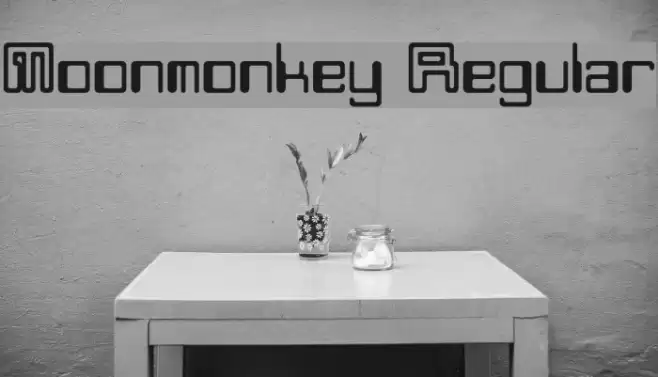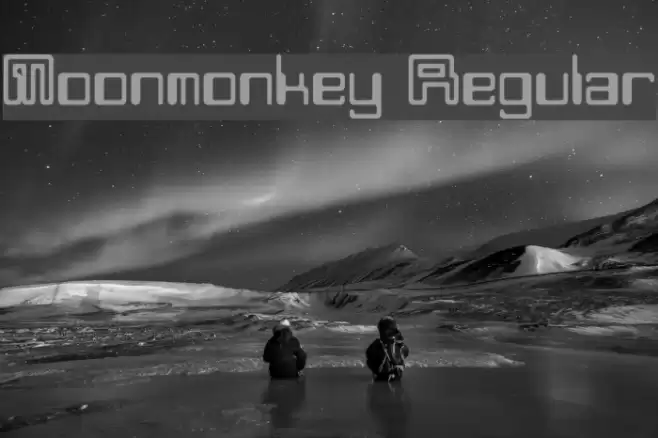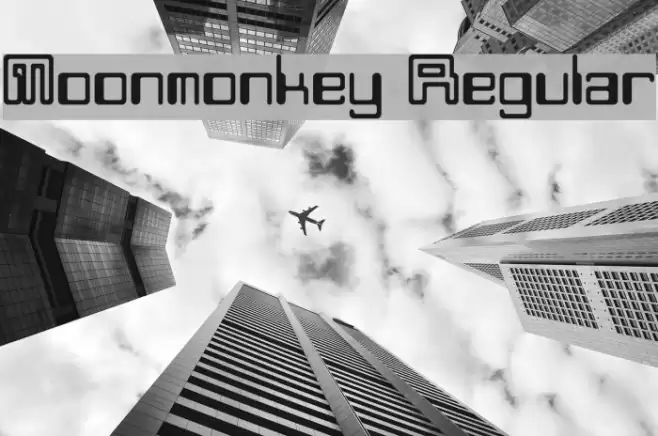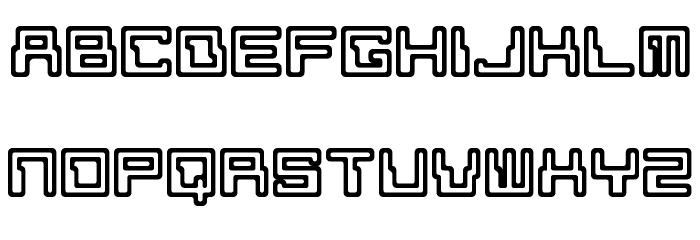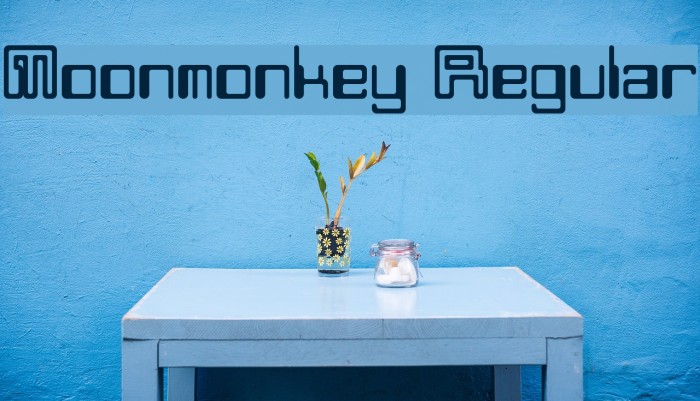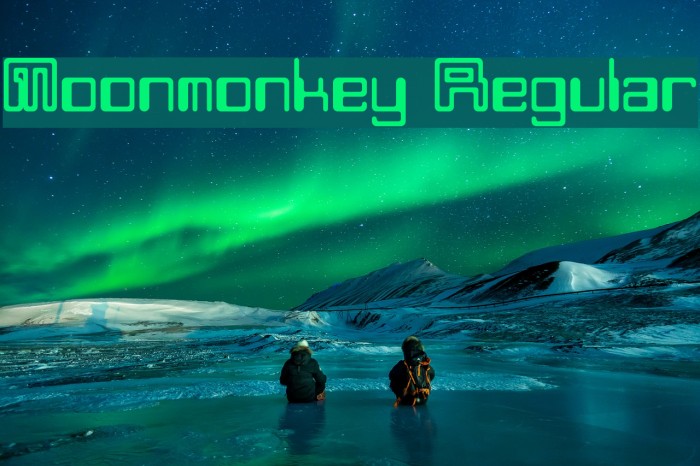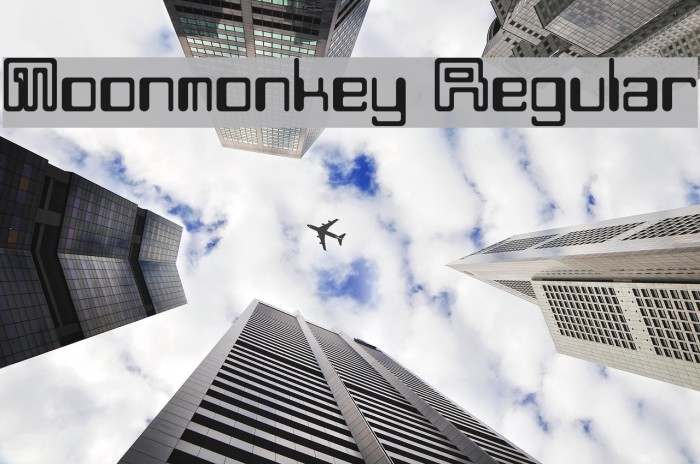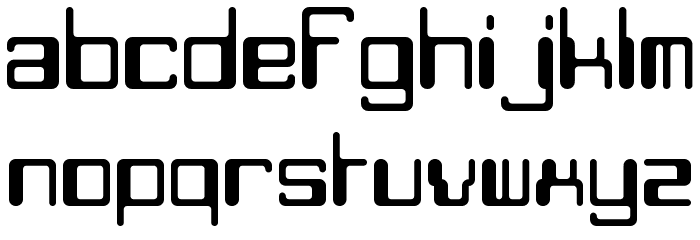
Moonmonkey Regular Font
Moonmonkey Regular Description
This font features a futuristic and geometric design with a strong emphasis on uniformity and symmetry. The characters are constructed with bold, rounded edges and consistent line thickness, giving it a modern and tech-inspired appearance. The uppercase and lowercase letters maintain a cohesive style, with the lowercase letters slightly more elongated. The numerals and special characters follow the same design principles, ensuring a harmonious look across all glyphs. This font's distinct style makes it suitable for projects that require a contemporary and innovative touch.
A futuristic, geometric font with bold, rounded edges and consistent line thickness from Uncategorized fonts.
- Proposed Projects: Ideal for technology branding, sci-fi themed designs, video game interfaces, and modern advertising.